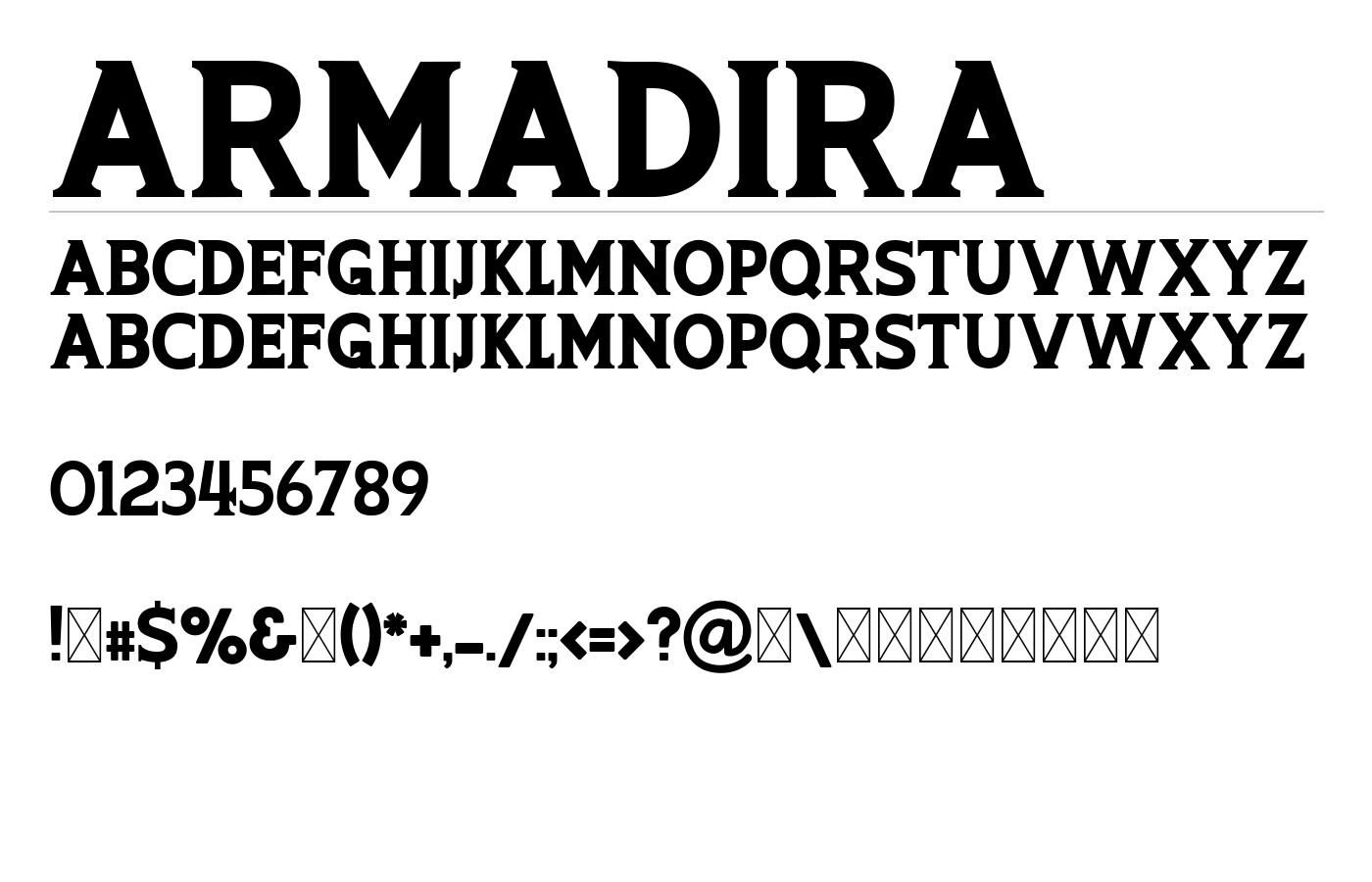
ARMADIRA is a strong serif font with a bold weight and a classic, sturdy appearance. Its high contrast and sharp, bracketed serifs give it a traditional yet commanding feel, making it ideal for impactful headlines, logos, and editorial designs that require a sense of authority and timeless elegance. This font works especially well in branding and print where a touch of sophistication and strength is desired.
ARMADIRA Font
About ARMADIRA Font